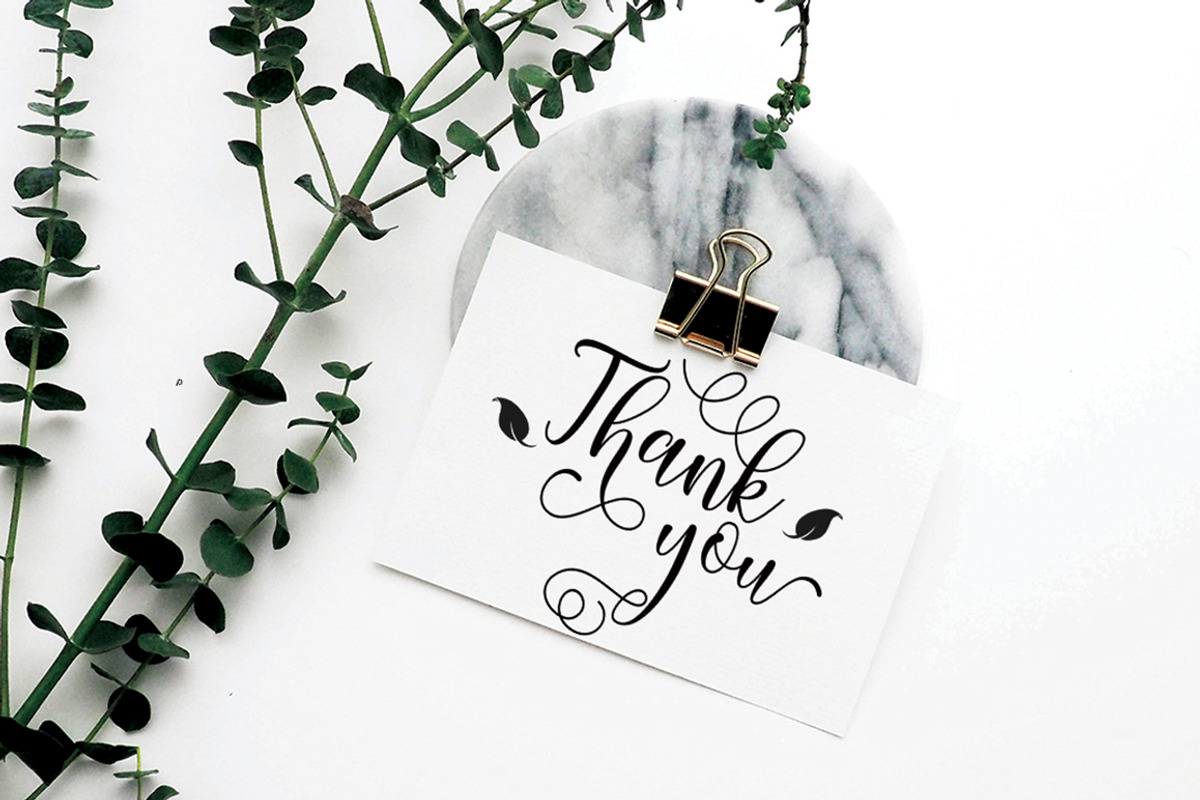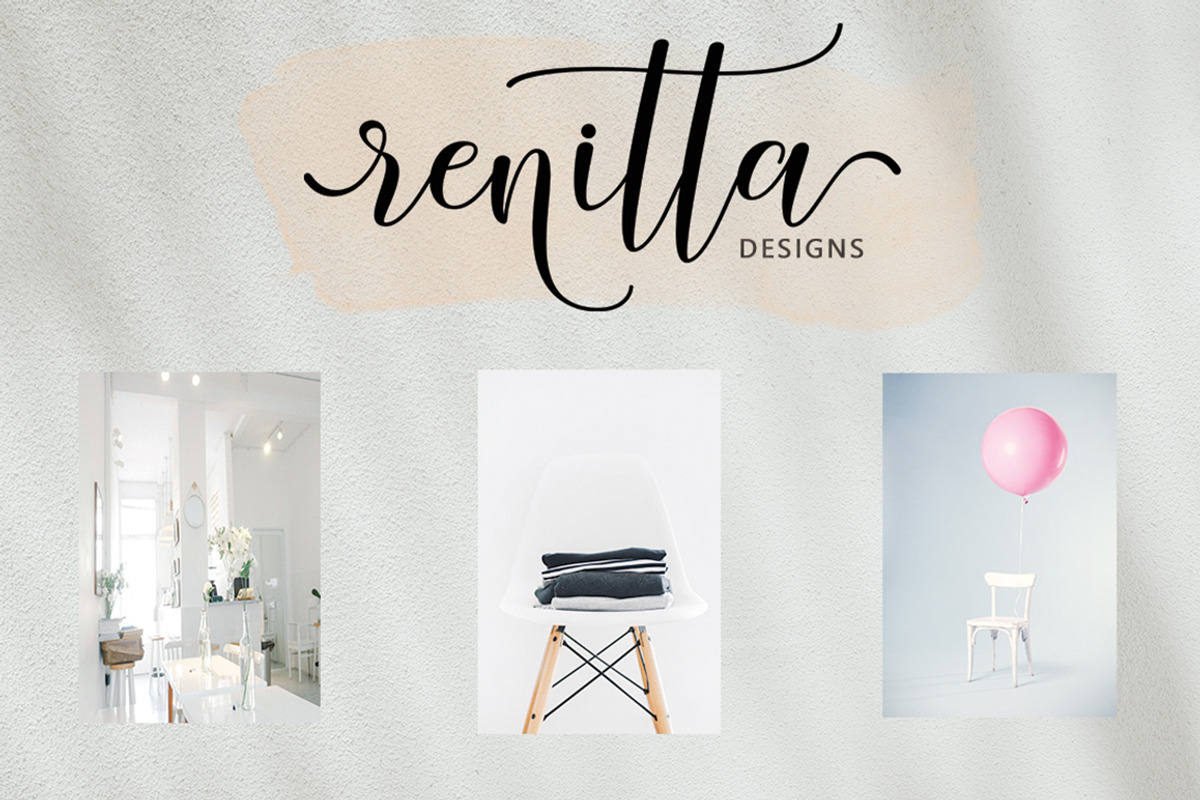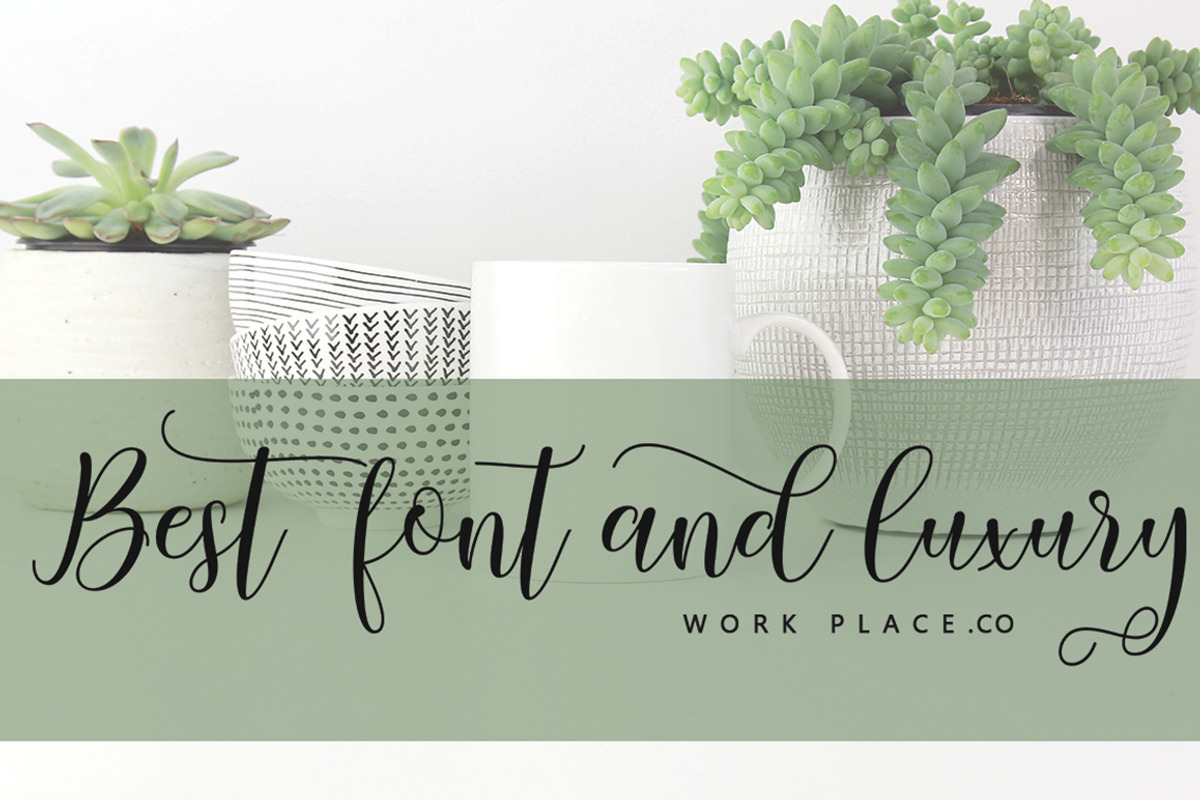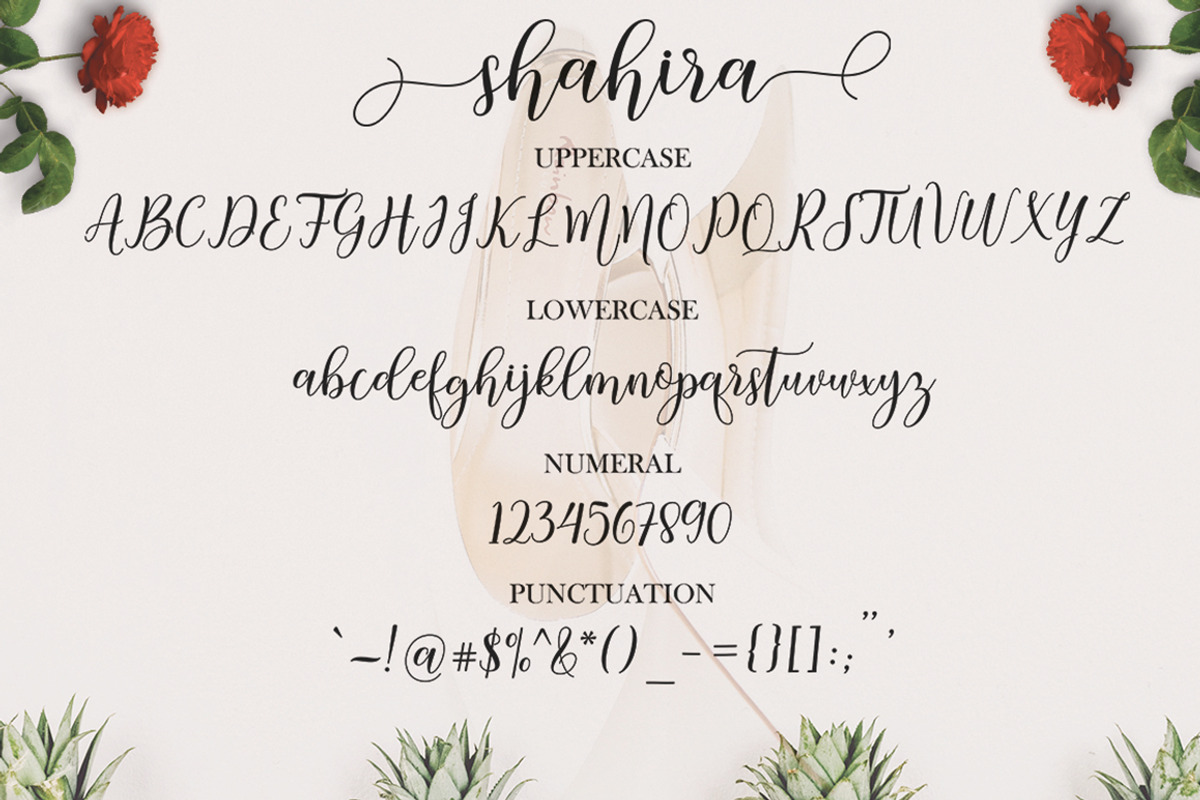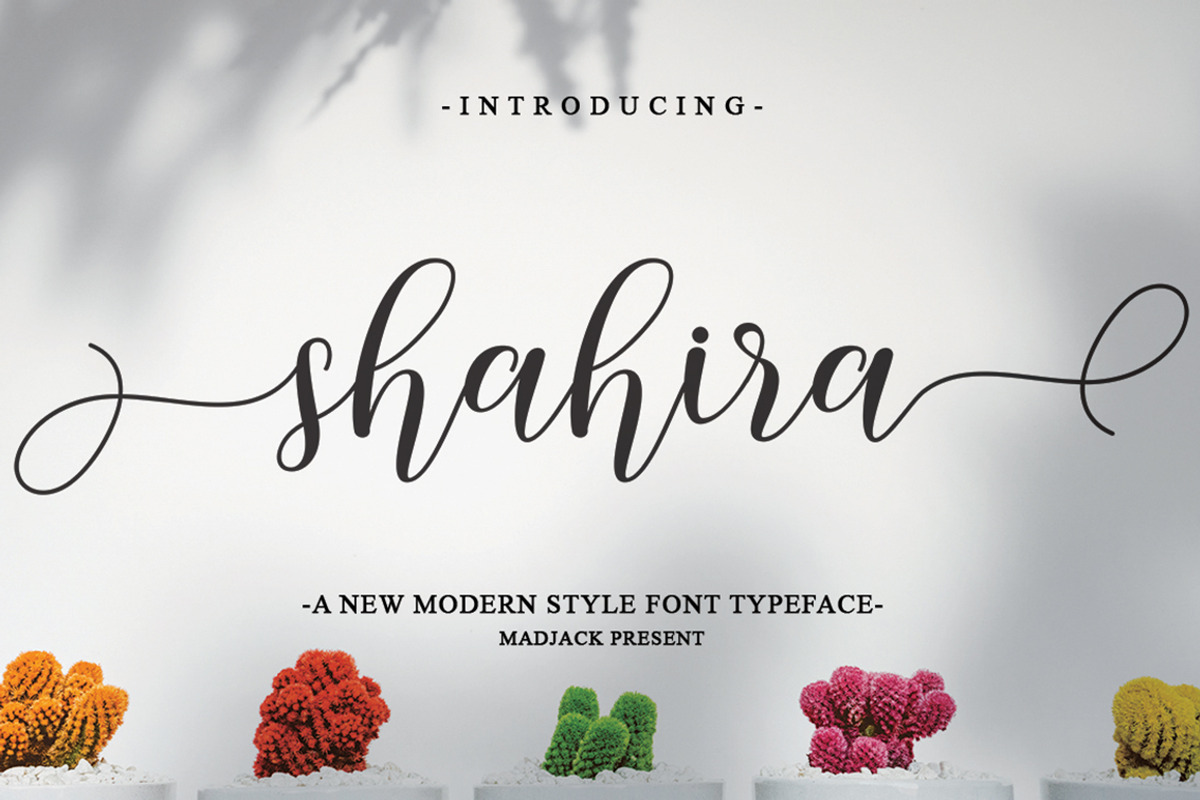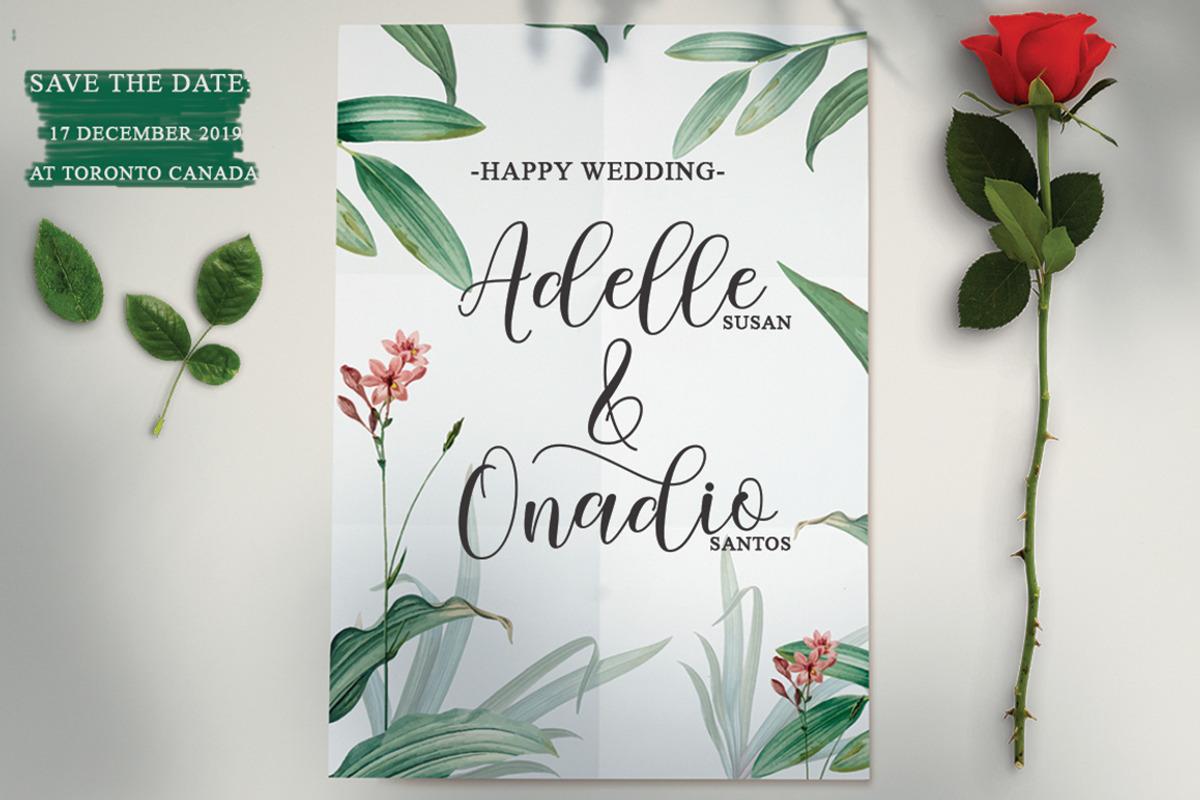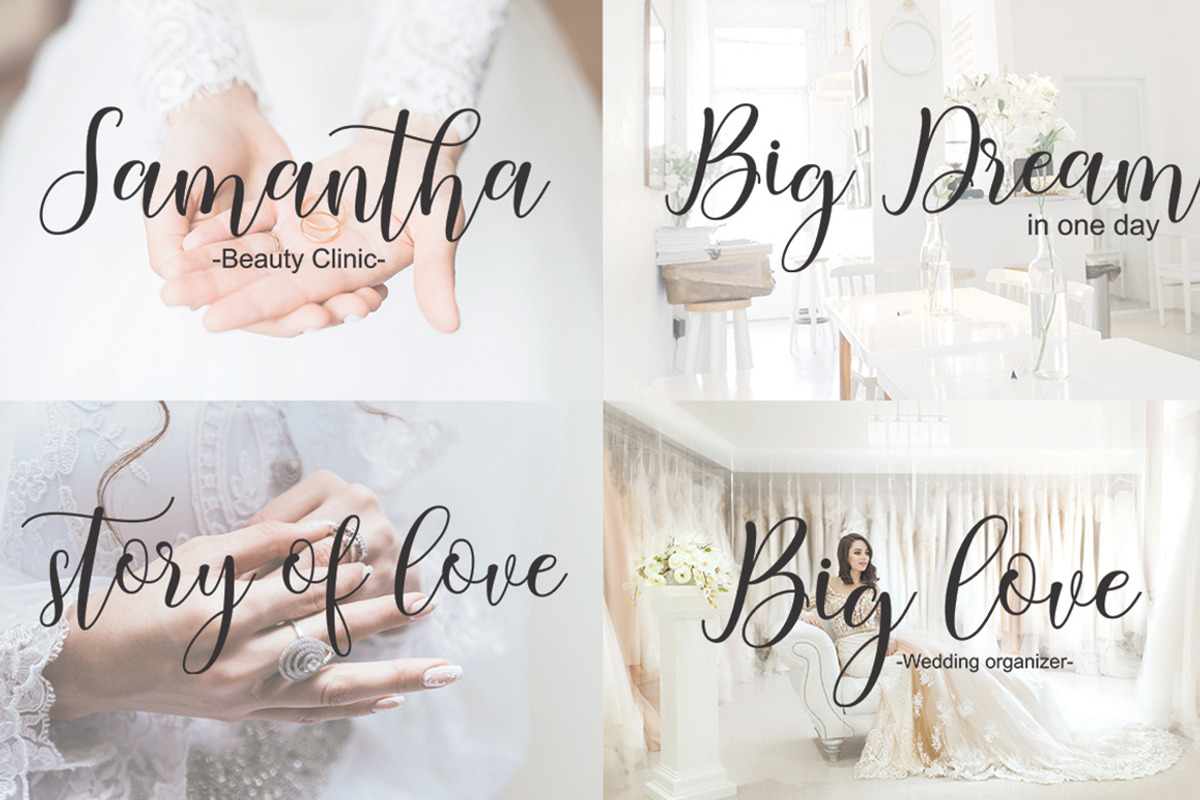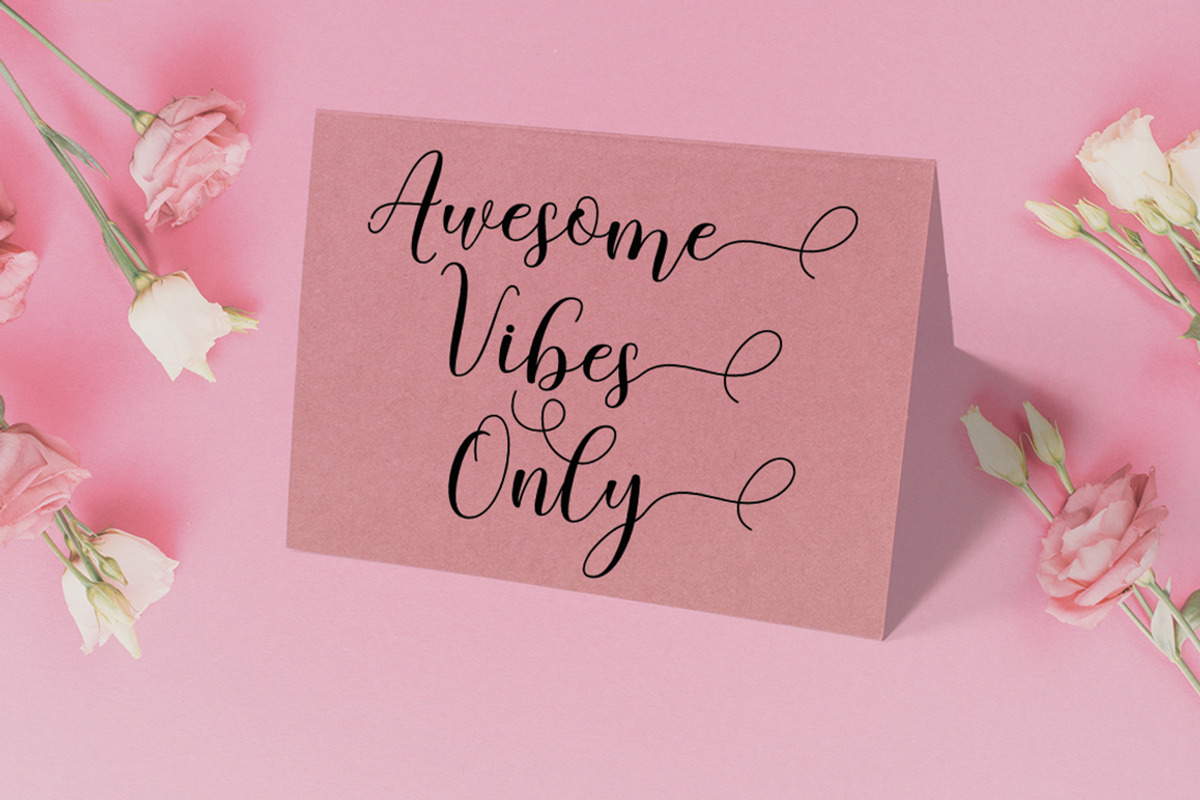
Shahira script
Shahira Script is a modern calligraphy design, including Regular. This typeface is casual and beautiful with swash. Can be used for various purposes. such as logos, product packaging, wedding invitations, branding, headlines, signage, labels, signatures, book covers, posters, quotes, and more.